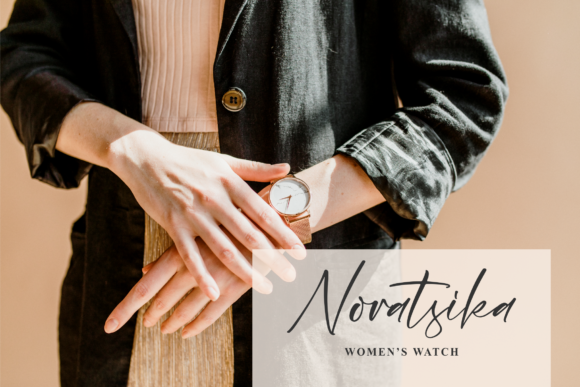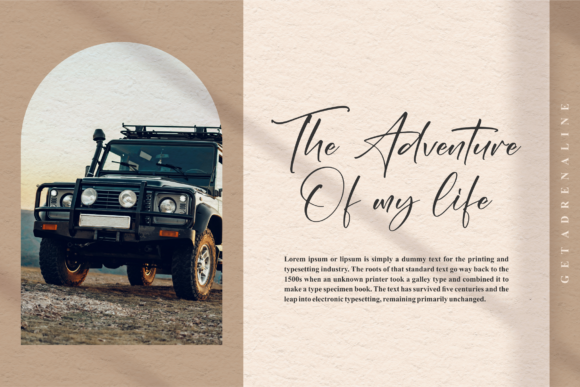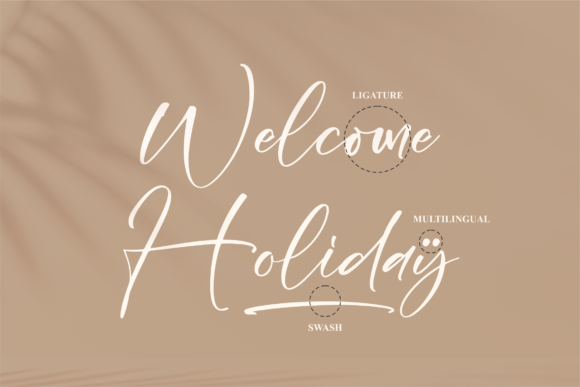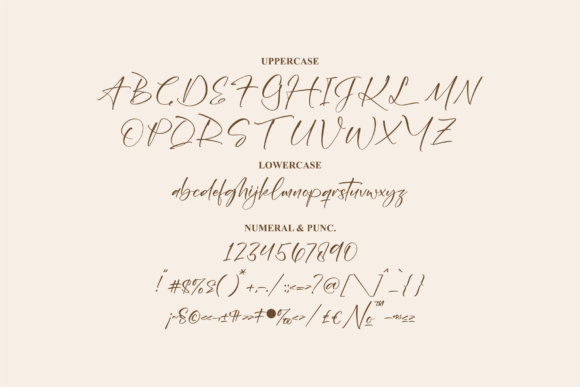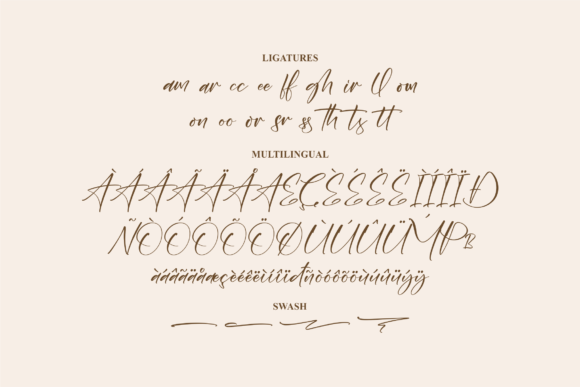
About Aghnisty Font
Aghnisty is a stylish and contemporary script font that brings a modern touch to a variety of design projects. Its trendy and versatile nature makes it a perfect choice for a wide range of applications, allowing you to infuse your creations with a fresh and fashionable vibe.
When it comes to logos and branding projects, Aghnisty adds a sense of modernity and flair. Its sleek and dynamic letterforms can help create a strong visual identity that resonates with your target audience and sets your brand apart.
For homeware designs and product packaging, Aghnisty’s chic script brings a touch of sophistication and elegance. Whether it’s on labels, tags, or packaging designs, the font’s contemporary style elevates the overall aesthetic of your products.
Mugs and merchandise adorned with Aghnisty’s trendy script exude a sense of modern charm and appeal. The font’s PUA encoding enables you to easily access a variety of swashes and glyphs, allowing you to customize your designs to perfection.
Quotes and posters come to life with Aghnisty’s sleek and stylish lettering. Whether you’re designing motivational prints or promotional materials, the font’s contemporary appearance adds a dynamic and eye-catching element to your compositions.
The font’s PUA encoding also provides you with the flexibility to experiment with different characters and decorative elements, enhancing your creative possibilities and allowing you to craft unique designs.
Aghnisty’s versatility extends to digital platforms as well. From social media graphics to website banners, the font’s modern and trendy look can enhance your online presence and engage your audience in a visually appealing way.
In summary, Aghnisty is a trendy script font that brings a contemporary and fashionable touch to your design projects. From logos to homeware designs, quotes to merchandise, its stylish letterforms add a modern edge and create an impact that captures attention. By incorporating Aghnisty into your designs, you’re infusing them with a fresh and trendy aesthetic that resonates with today’s audience.